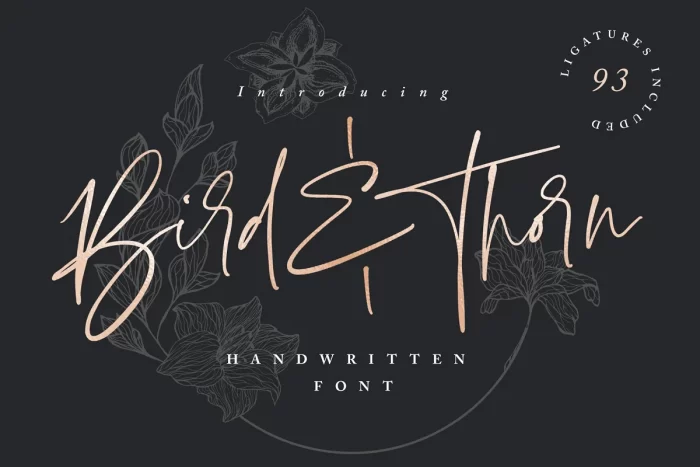
Introducing Bird & Thorn; A vivacious & expressive script font with a stylish quality. Bird & Thorn is completely hand-drawn and designed to perfectly re-create natural handwriting; this is achieved by the addition of 93 custom ligatures. These double letters connect and flow much more authentically and are guaranteed to give your text that extra quality and distinction. It’s the perfect choice for stylish branding & logo projects, product packaging, handwritten quotes & editorial design.